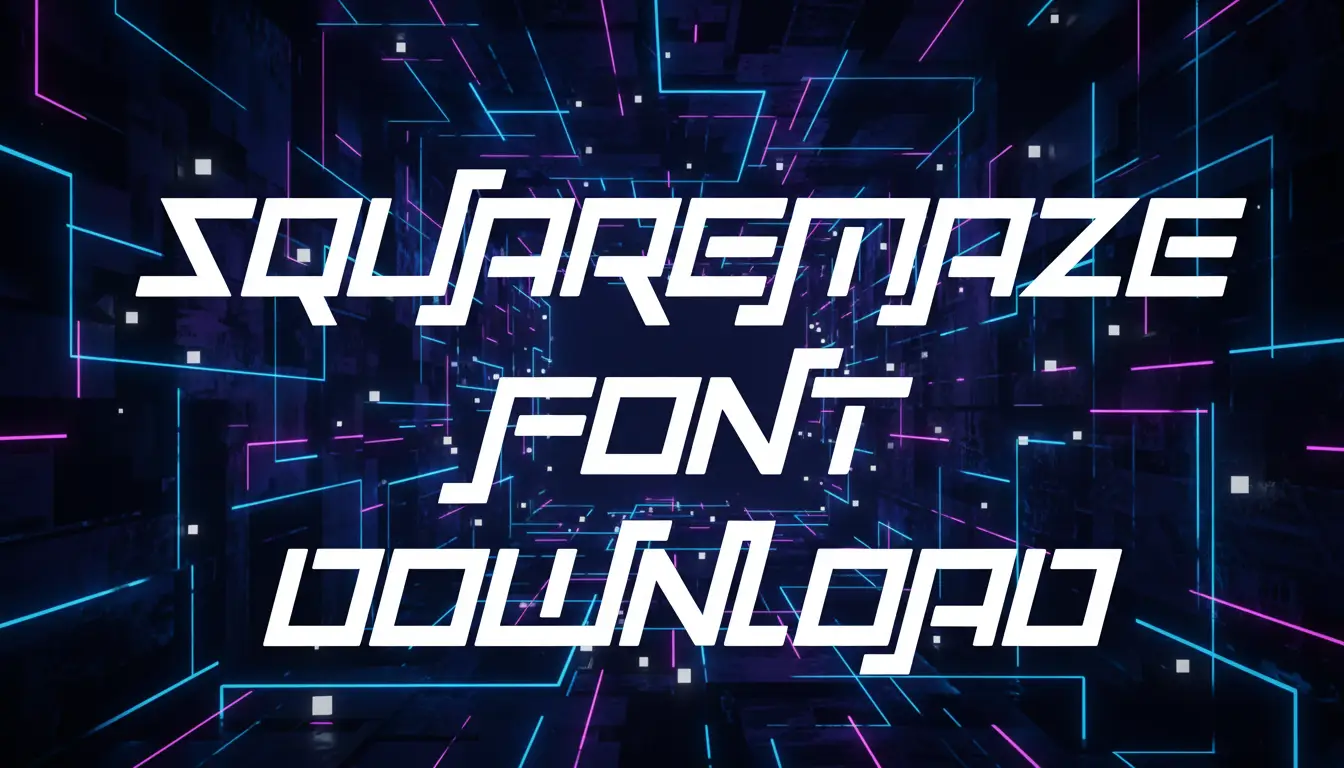
Squaremaze Font
Squaremaze
Squaremaze is a techno font designed by Darrell Flood and published by High-Logic / Made with FontCreator. Squared-off, geometric letters give it a digital, high-tech feel. You get two styles in one free ZIP, and the preview above lets you test each one before you download.
What You Can Type With Squaremaze
Squaremaze covers the full alphabet in upper and lowercase, plus all ten numbers, so you can set names, dates and prices without switching fonts. Everyday marks like &, !, ? and @ are there too. There are no accented letters like é or ñ, so it's best kept to English text.
Where Squaremaze Works Best
Squaremaze is a natural fit for gaming logos, tech branding and futuristic posters. Try it on a dark background with a bright accent color for a sharp, modern look. Because the family has more than one style, you can mix them in a single design for headings, subheadings and highlights.
Does Squaremaze support accented letters?
No. Squaremaze has no accented letters such as é, ñ or ü, so it's best for English text.
What fonts pair well with Squaremaze?
A simple sans serif like Roboto keeps longer text easy to read next to it.